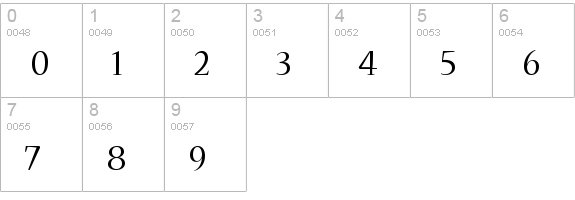
Nueva Std Font Details
Nueva Std is a beautifully crafted typeface that exudes elegance and sophistication. Its clean lines and modern aesthetic make it suitable for a wide range of design projects, from branding to editorial design. The versatility of Nueva Std allows it to seamlessly blend into various design styles, adding a touch of refinement to any project. What sets Nueva Std apart is not only its aesthetic appeal but also its accessibility. This premium font is available for free download at FontsMarket.com, making it a valuable resource for designers looking to elevate their work without breaking the bank. Whether you're working on a corporate identity, a magazine layout, or a website design, Nueva Std is sure to bring a touch of class to your project. With its timeless design and easy accessibility, Nueva Std is a must-have font for any designer looking to make a statement with their work. Download it for free today and see the difference it can make in your designs.